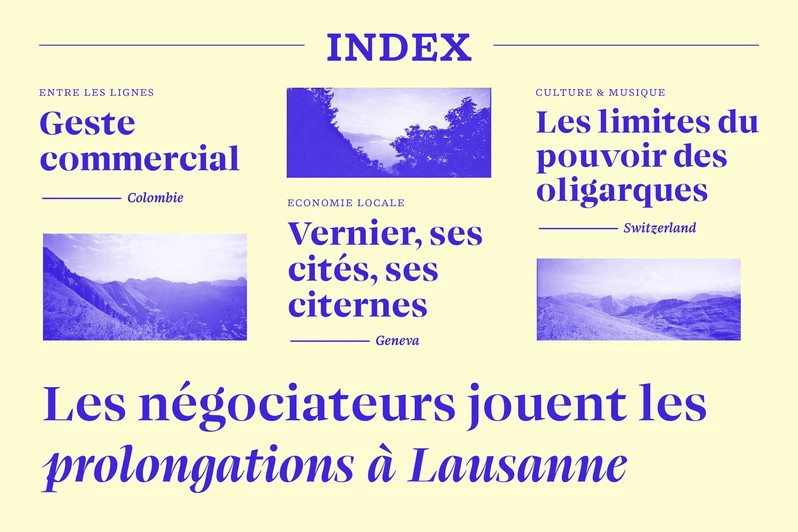
The Lemanic family started in 2013, with the idea of merging the ideas of Pierre-Simon Fournier with the classic Romain du Roi typeface. Over time, the project grew into a dual family—divided between a robust, almost slab, ‘text’ version, and a sharper, more elegant display version whose appearance is more appropriate for titles.